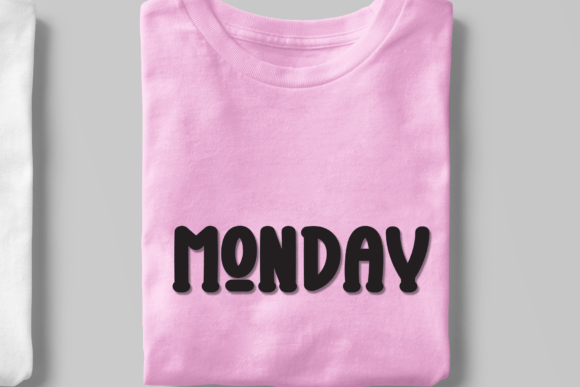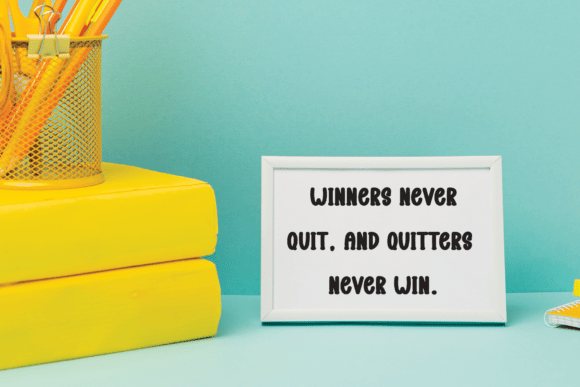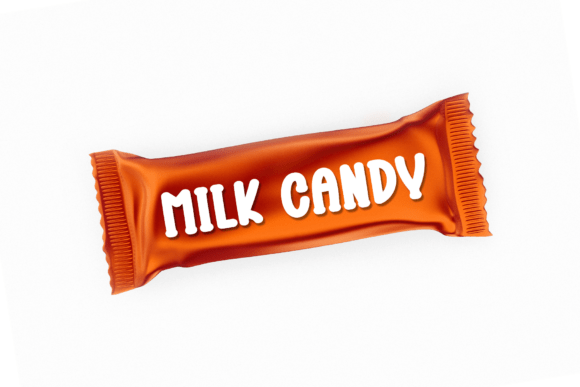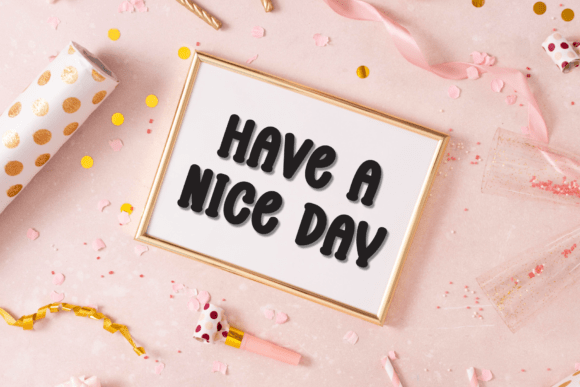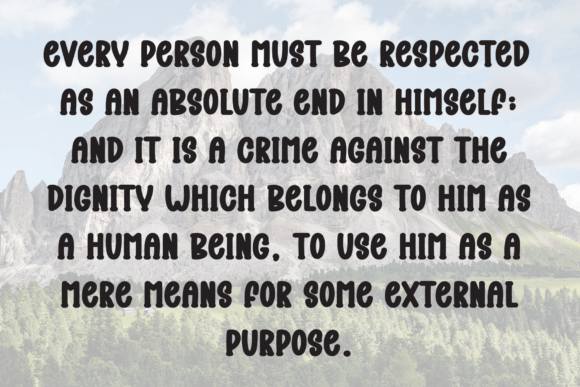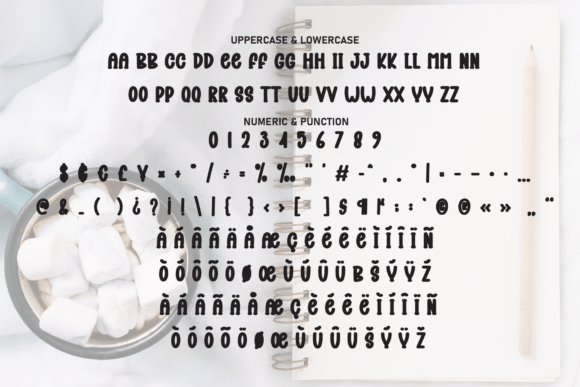
The Daily Notes Font: A Warm and Inviting Addition to Your Design Toolbox
Have you ever been in the middle of a design project, and suddenly, you’re stuck on finding the perfect font? I recall a recent experience where I was working on a branding project for a cozy coffee shop. The client wanted a font that felt approachable, yet professional. After hours of searching, I stumbled upon the Daily Notes font, and it was love at first sight! ✨ In this article, we’ll dive into the world of Daily Notes, exploring its features, uses, and some helpful tips for incorporating it into your designs.
A Personal Review of Daily Notes
- ✅ Clean and balanced letterforms that offer excellent readability
- ✨ A warm and inviting style that’s perfect for branding and headlines
- 🌟 Approachable and genuine feel that suits everyday designs
- 🎨 Versatile and adaptable to various design projects and contexts
While Daily Notes is an excellent font, there are a few minor quirks to consider:
- ⚠️ Limited availability of extended language support
- 🤔 Some users might find the font too casual for very formal projects
The Story Behind Daily Notes
Daily Notes was designed with the goal of creating a font that feels both approachable and professional. The designer aimed to craft a font that would bring warmth and clarity to various design projects, from branding to everyday designs. By combining clean structure with a casual style, Daily Notes offers a unique and inviting aesthetic that’s hard to resist.
Q: What type of projects is Daily Notes best suited for?
A: Daily Notes is versatile and can be used in various projects, including branding, headlines, and everyday designs.
Q: Is Daily Notes suitable for body text?
A: While Daily Notes is legible, it’s primarily designed for display purposes. For body text, you might prefer a font with more traditional proportions.